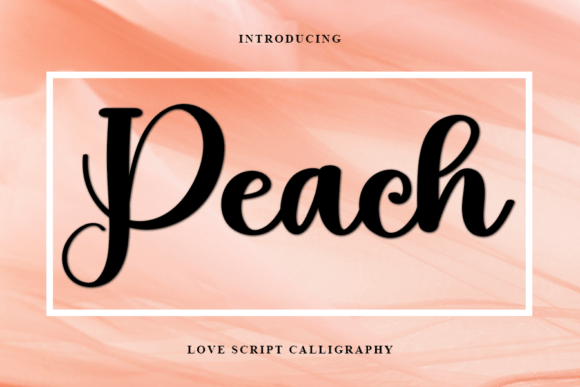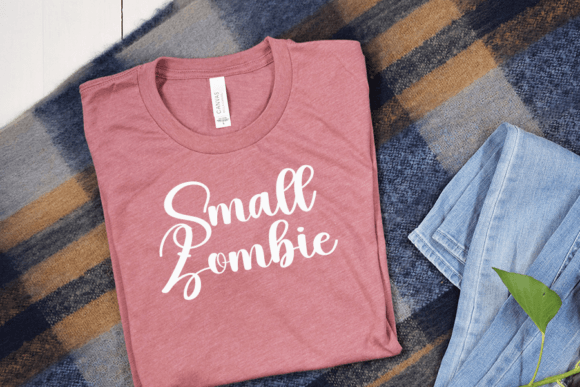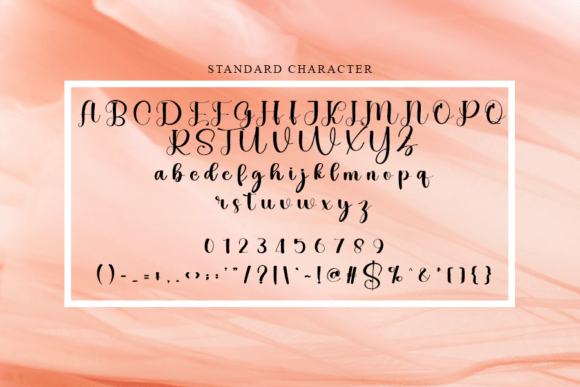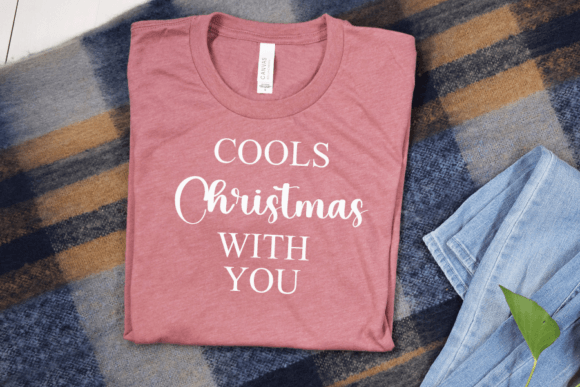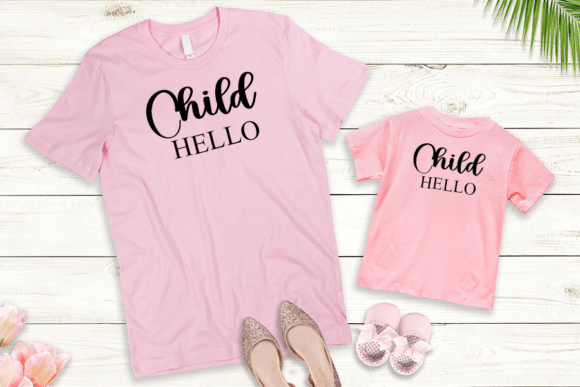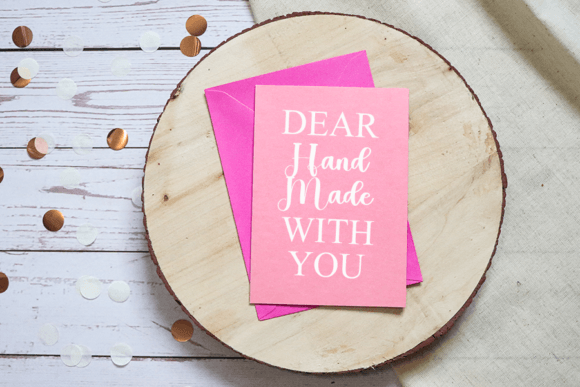
Peach Font
About Peach Font
**Peach: A Beautiful and Refined Handwritten Font**
Meet **Peach**, a font that radiates beauty and refinement. With its combination of class and modernity, it’s the perfect choice for a wide range of creative applications. Whether you’re working on logos, branding materials, invitations, stationery, wedding designs, social media posts, or any other project, **Peach** adds a touch of elegance that sets your work apart.
This font stands out with its graceful and meticulously crafted letterforms. Each character exudes a sense of beauty and sophistication, making it a versatile choice for projects that demand a touch of class.
**Peach** is your go-to solution for branding projects. It effortlessly adds a layer of refinement to your visual identity, ensuring your brand communicates professionalism and elegance. Whether you’re designing logos, business cards, or other branding materials, this font elevates your brand’s image.
Invitations and stationery become truly special with the addition of **Peach**. Its timeless beauty sets the stage for memorable events, leaving a lasting impression on your guests.
For wedding designs, **Peach** adds a sense of romance and elegance that complements the occasion perfectly. It captures the essence of love and commitment, making it an excellent choice for wedding invitations, save-the-dates, and more.
In the world of social media, this font shines bright. It enhances your posts, ensuring your content stands out with a touch of sophistication and modernity.
In conclusion, **Peach** is more than just a font; it’s a design asset that infuses beauty and refinement into your creative projects. Whether you’re working on branding, invitations, or social media content, choose **Peach** to make a lasting impression and elevate your work to new levels of elegance. Embrace its timeless charm and let your creativity flourish.